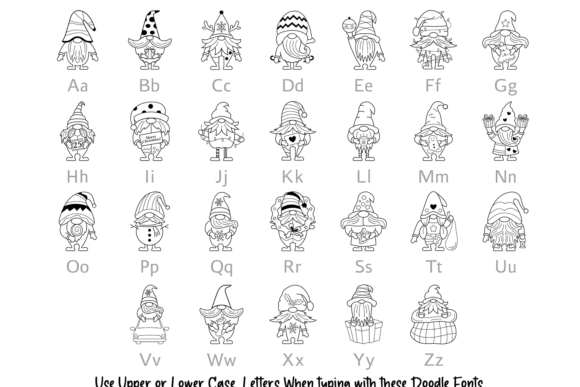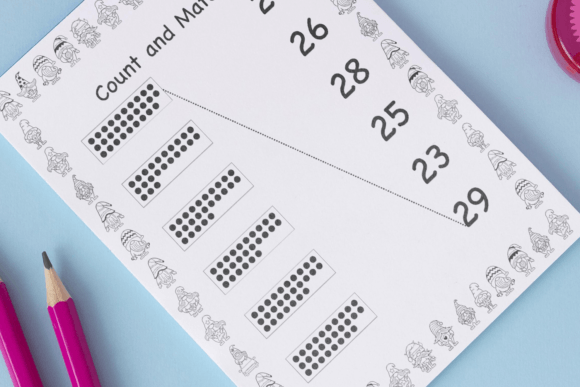
Gnome Christmas Doodle Font
Gnome Christmas Doodle is a fun and cute dingbats font. Its versatility makes it great for a wide pool of craft projects, designs, planners, diaries, activity books, or anything your heart desires!